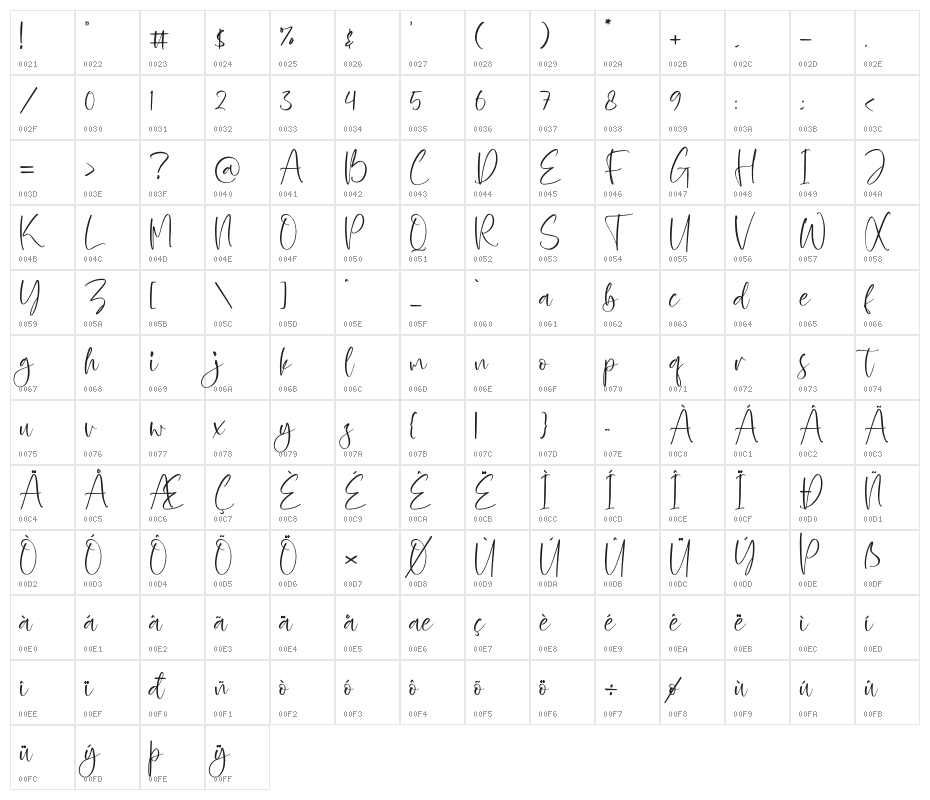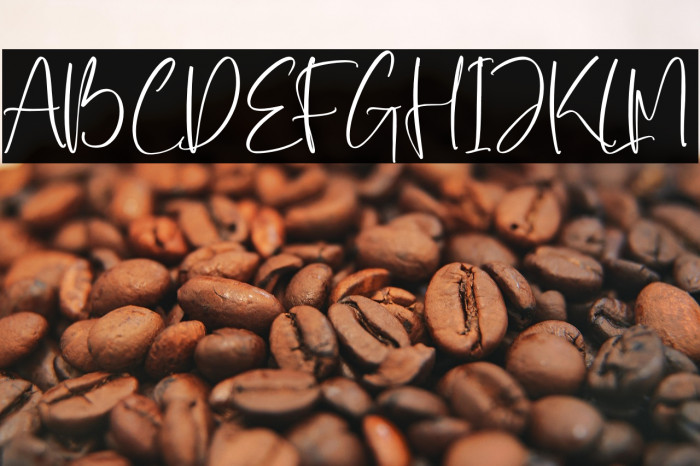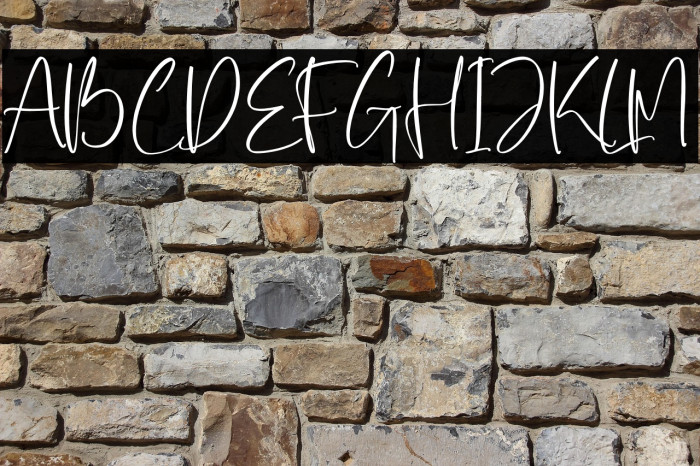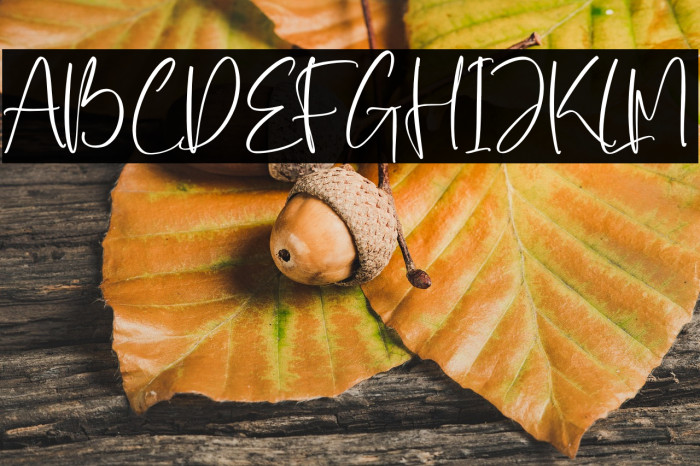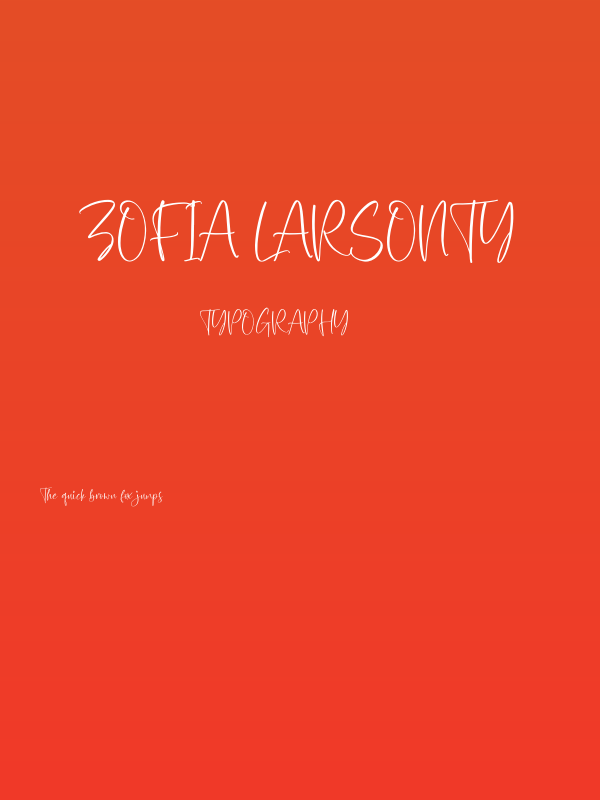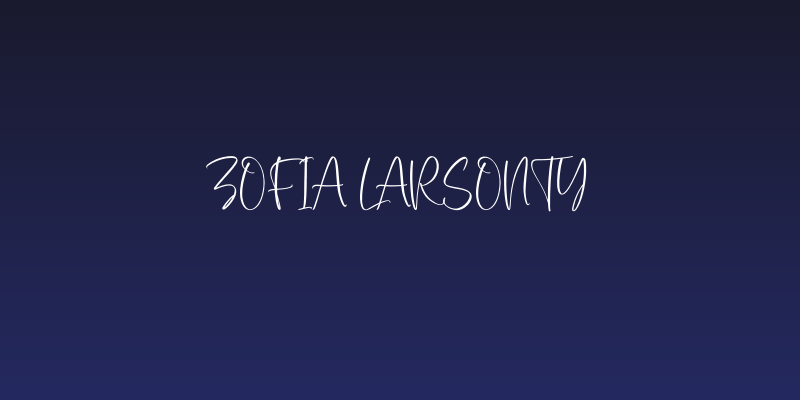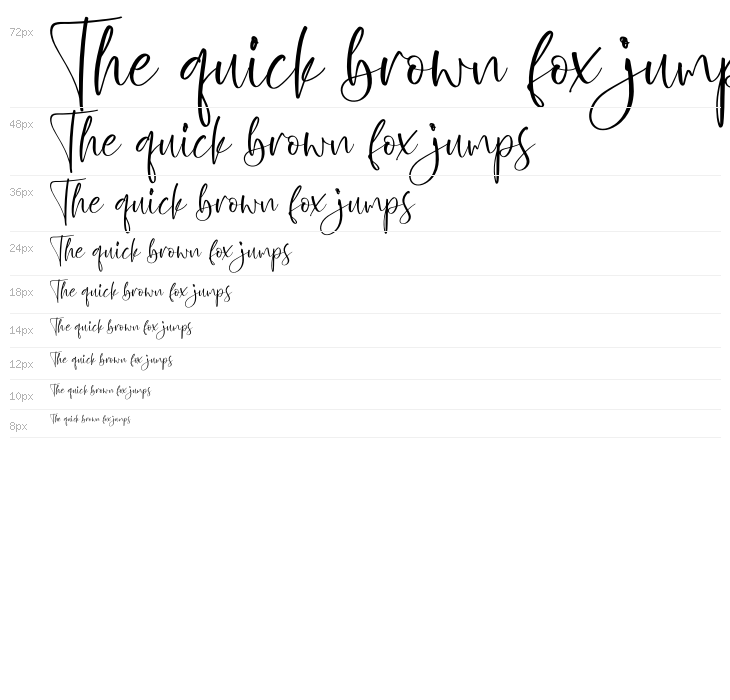
Zofia Larsonty Font
Zofia Larsonty Description
A flowing, handwritten script font with a casual and artistic style, featuring varying stroke widths and a playful, informal appearance.
| Overall Style | Casual, Artistic |
| Use Case | Logos, Invitations, Personal projects |
| Proposed Projects | Greeting cards, invitations, personal branding. |